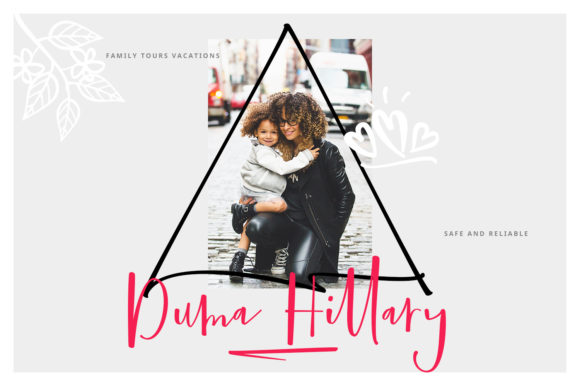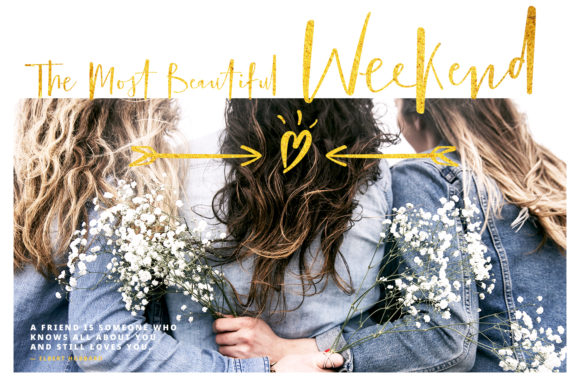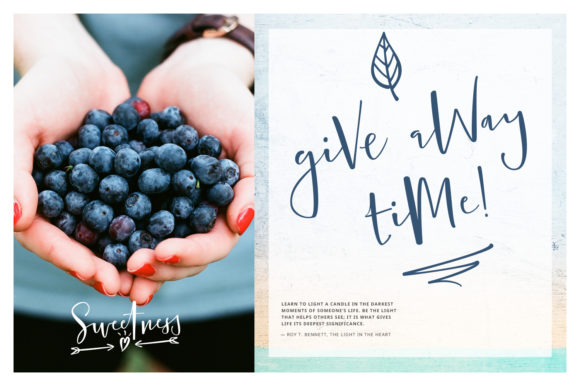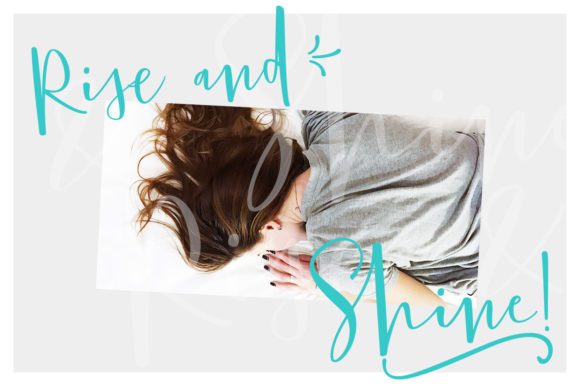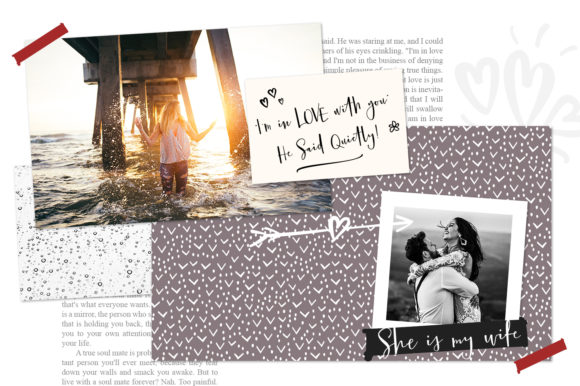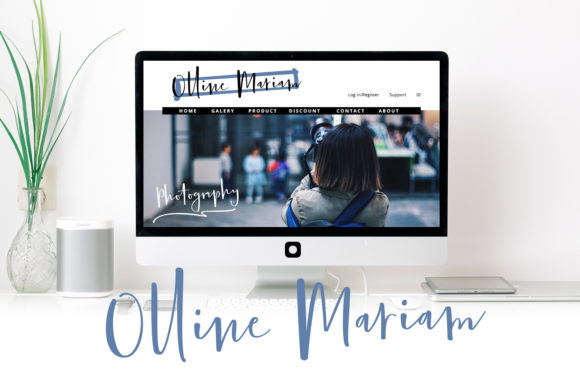
Introduction to Pellony Kind Font
There’s nothing quite like the rush of creativity that comes with starting a new design project. You’re brainstorming ideas, experimenting with colors, and searching for the perfect font to bring your vision to life. And that’s where the Pellony Kind Font comes in – a free download that’s sure to inspire your next creative project.
This high-quality, handwritten font boasts a modern feel and an incredibly sweet and friendly vibe. Its unique, raw feel is perfect for designers looking to add a touch of personality to their designs. With a transparent background, the Pellony Kind Font is a versatile design resource that can be used in a variety of applications, from social media graphics to marketing materials.
Pellony Kind Font
- High-quality design resource with a transparent background, ideal for creative projects.
- Includes a range of font styles and weights, perfect for adding variety to your design.
- Supports a wide range of languages, making it a versatile choice for global projects.
- Unique characteristic: Pellony Kind Font features a unique blend of modern and vintage elements, adding a touch of elegance to any design.
Honest Review: Pellony Kind Font
I recently had the chance to try out the Pellony Kind Font and I must say it’s a lovely addition to any design resource. This font is perfect for any creative project that requires a unique and elegant touch.
- High quality design that’s perfect for both digital and print projects
- Transparent background makes it easy to use in a variety of design settings
- Beautifully crafted letters and characters that are sure to add a touch of sophistication to any design
⚠️ However, I did notice a few limitations:
- The font is only available in a limited number of weights and styles
- Some of the characters may not be fully compatible with certain design software
Overall, I’m really impressed with the Pellony Kind Font. It’s a high-quality design resource that’s perfect for any creative project. With a few minor tweaks, I think this font has the potential to be a top choice among designers. As it stands, it’s definitely worth considering for your next design project.
To get the most out of the Pellony Kind Font, use it in conjunction with other design elements to create a visually appealing and cohesive look. Experiment with different font sizes, colors, and arrangements to find the perfect combination for your creative project.
The Pellony Kind Font is perfect for use in logos, branding materials, and marketing materials. It’s also great for use in digital graphics, social media posts, and other creative projects that require a unique and eye-catching font.
Compared to Pellony Kind Font, Great Vibes has a more refined and sophisticated feel. While Pellony Kind Font has a more playful and whimsical vibe, Great Vibes is better suited for more formal and high-end design projects.
Compared to Pellony Kind Font, Alex Brush has a more delicate and intricate feel. While Pellony Kind Font has a more bold and playful vibe, Alex Brush is better suited for more subtle and understated design projects.